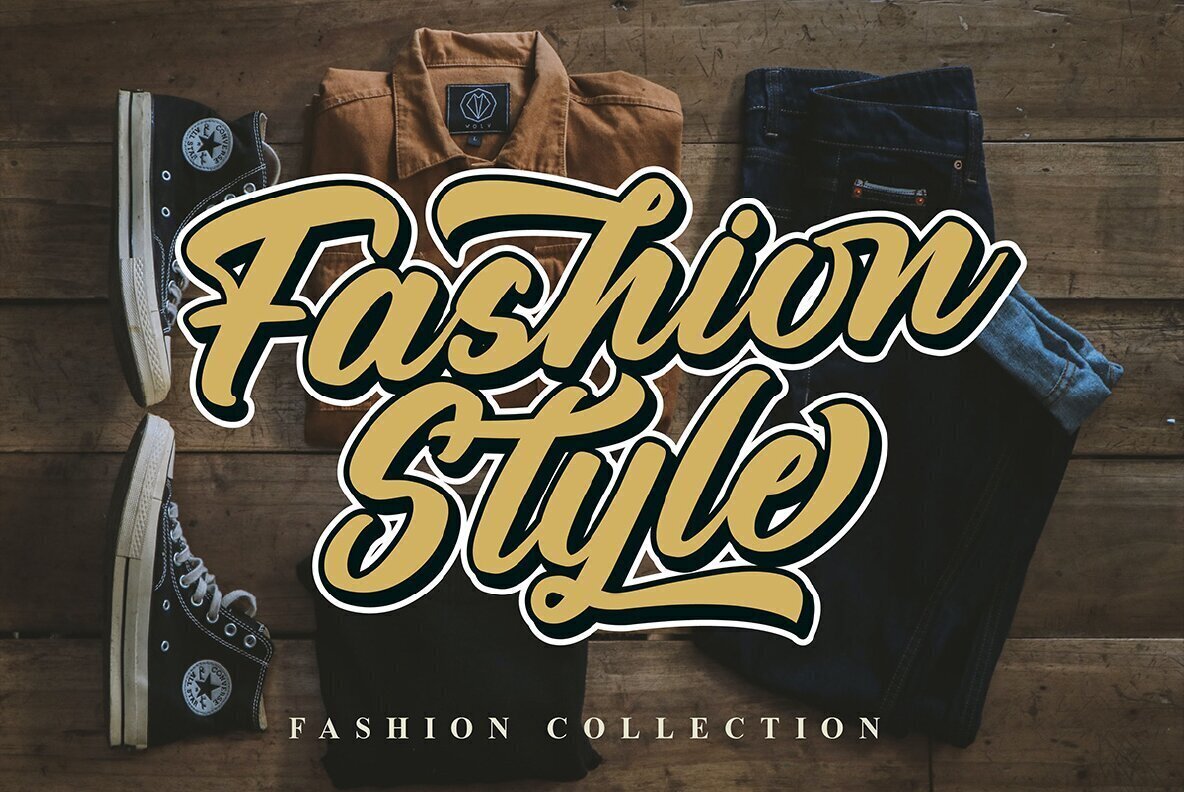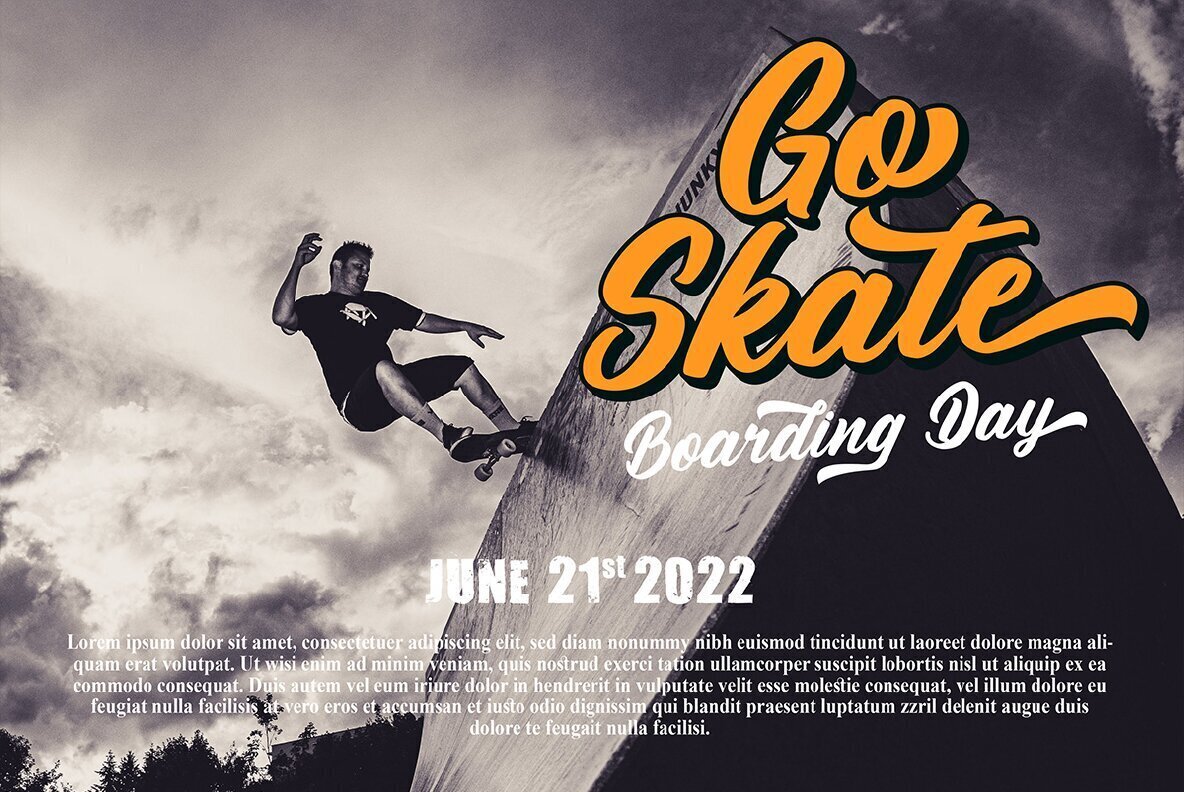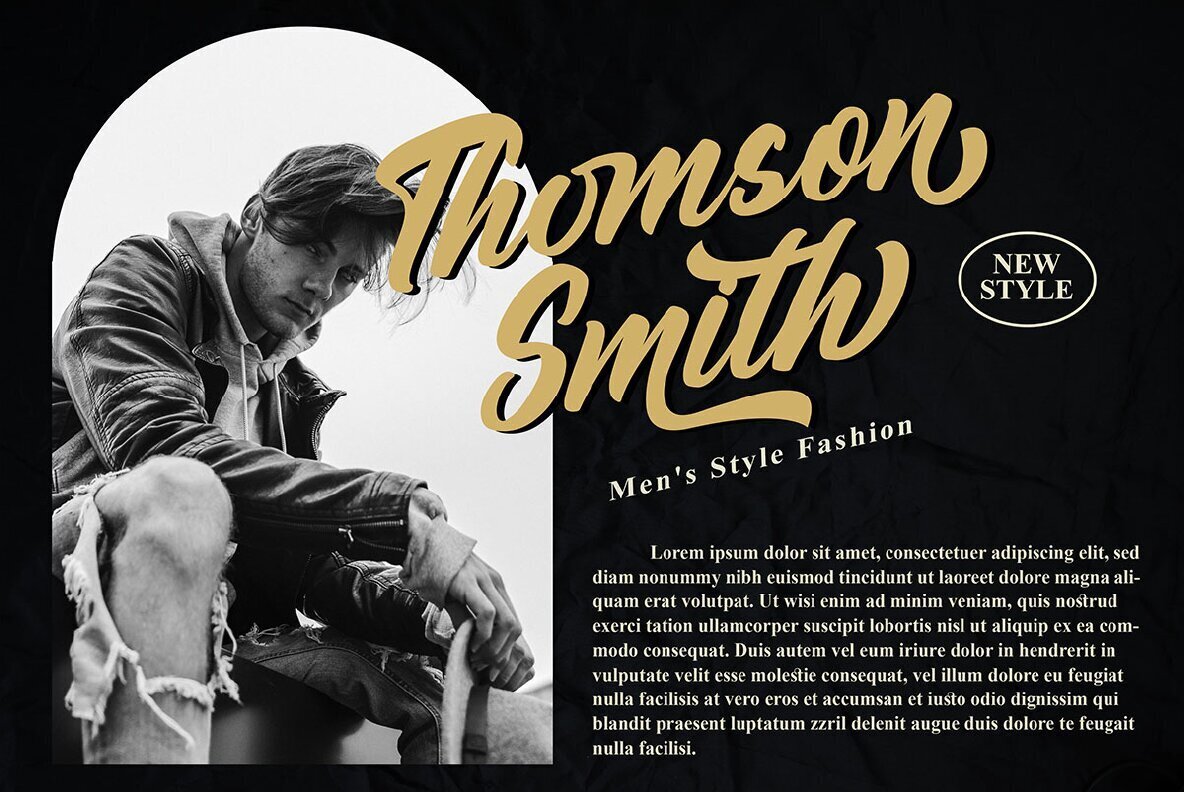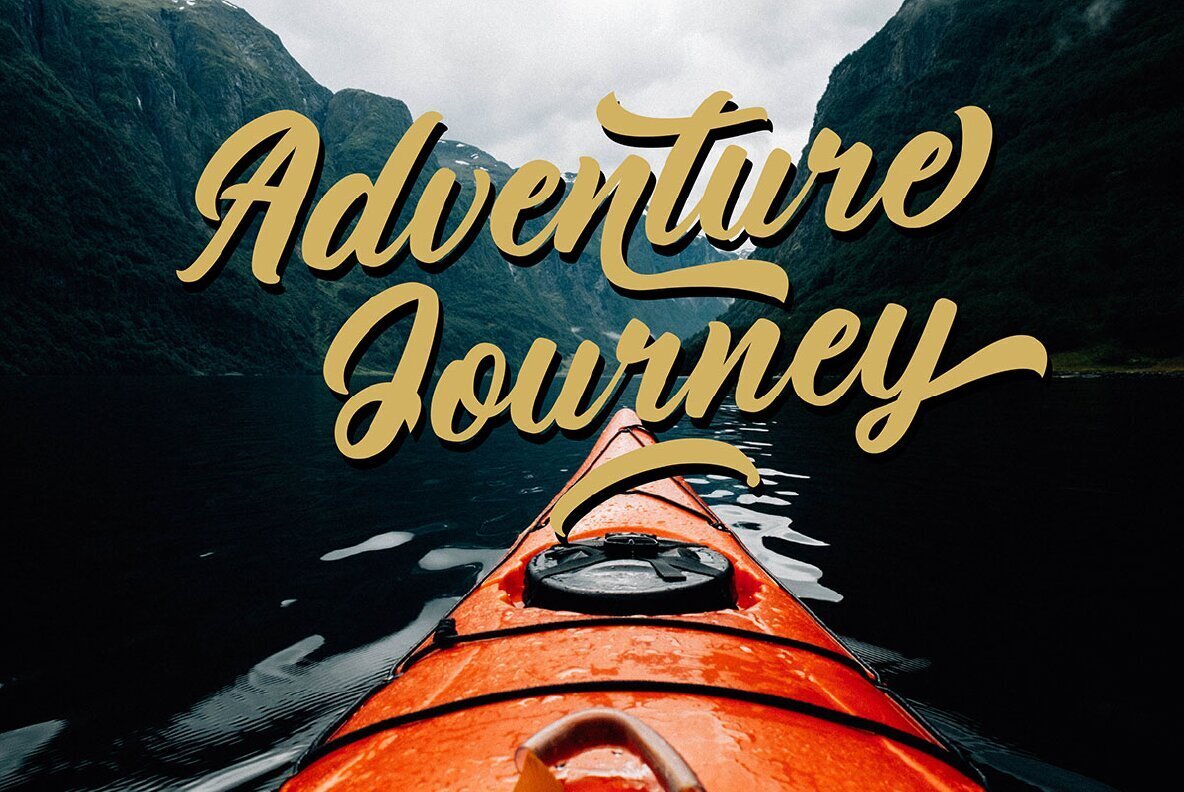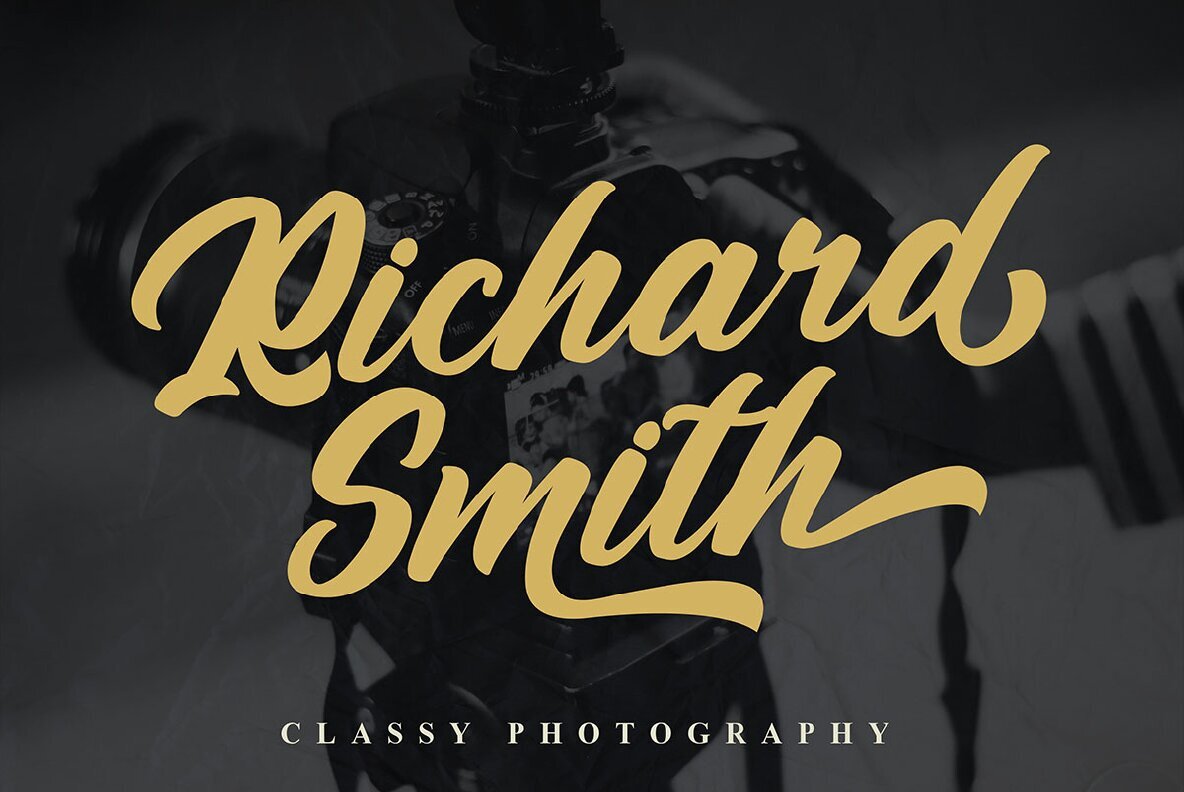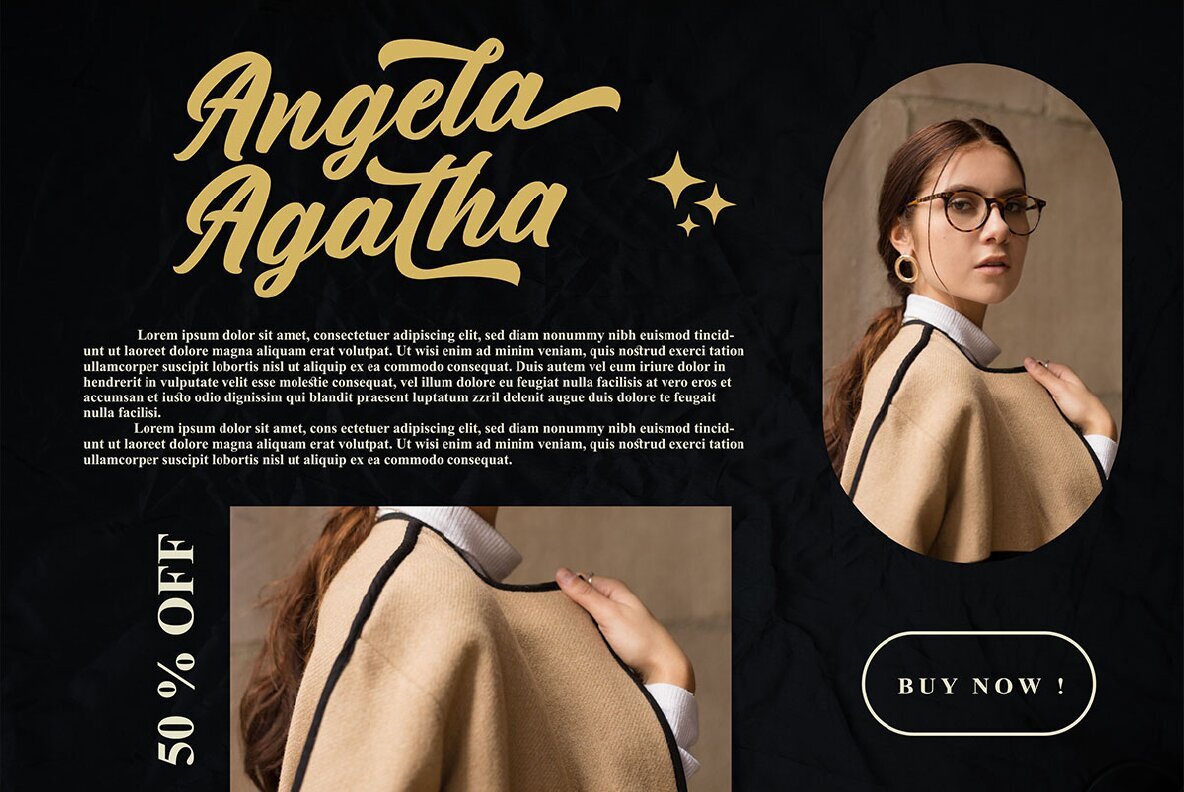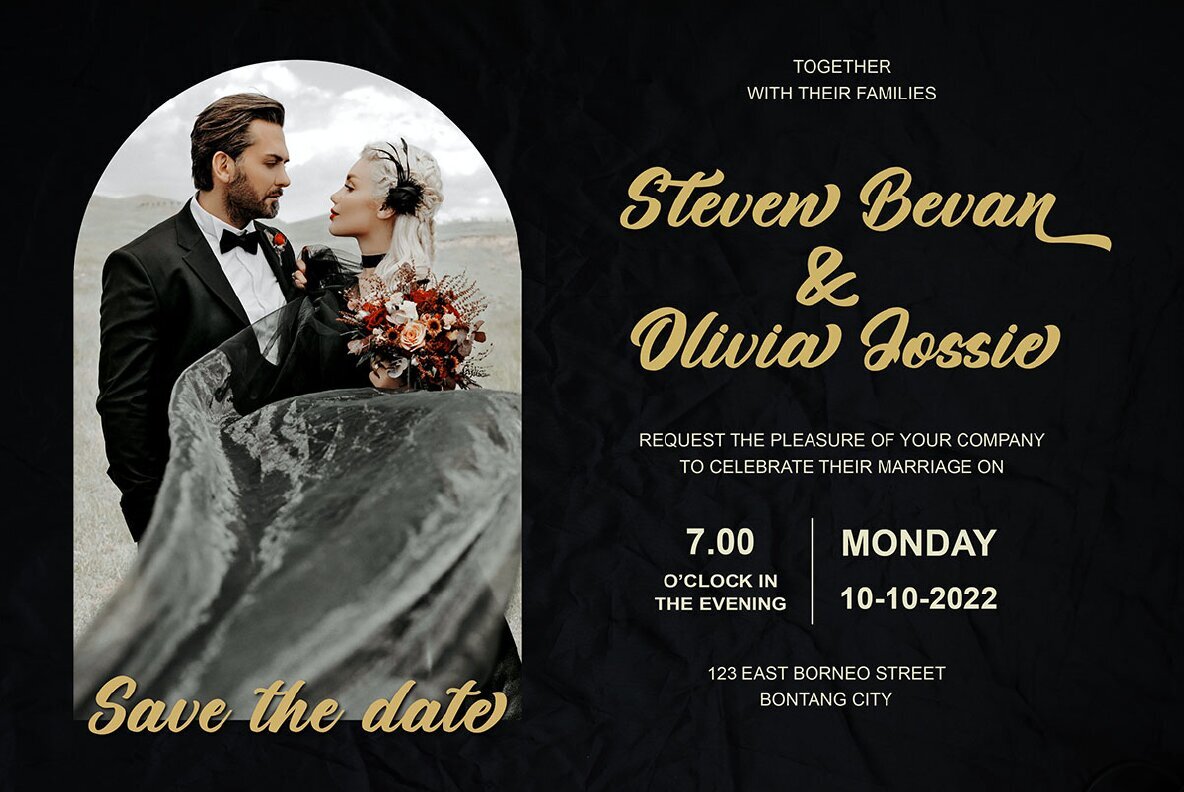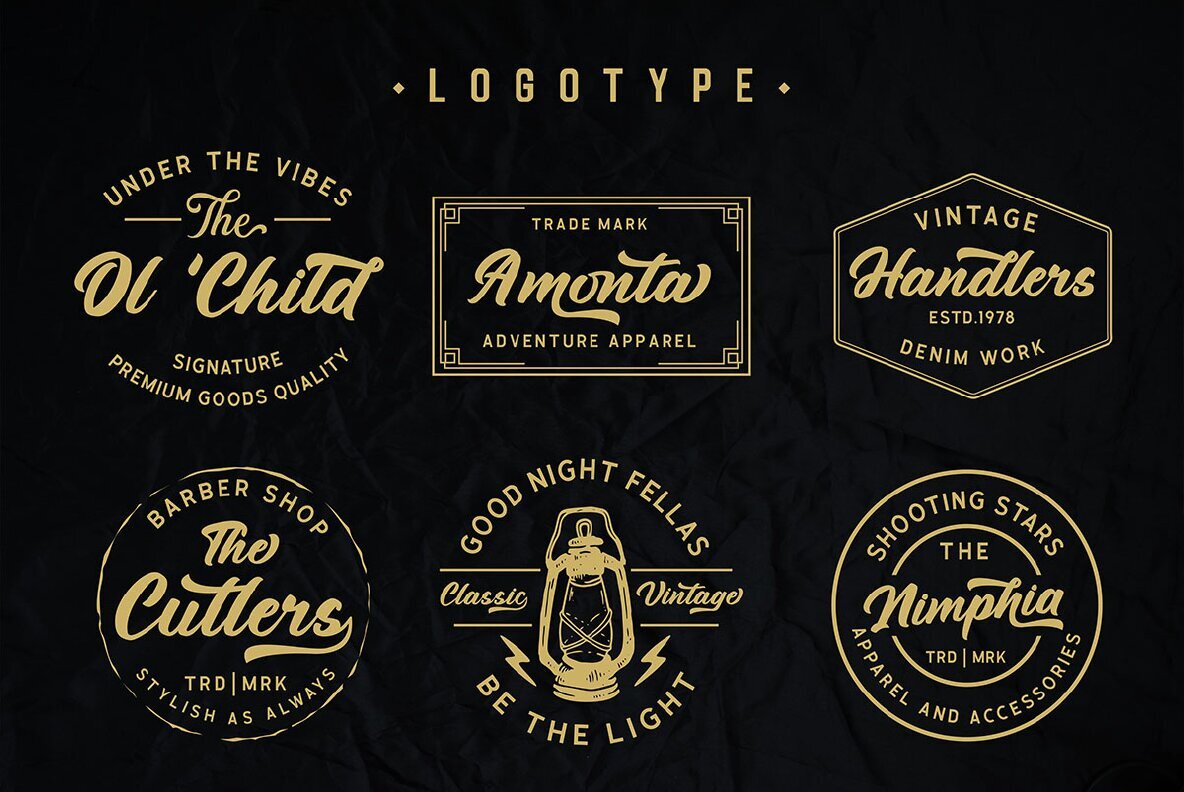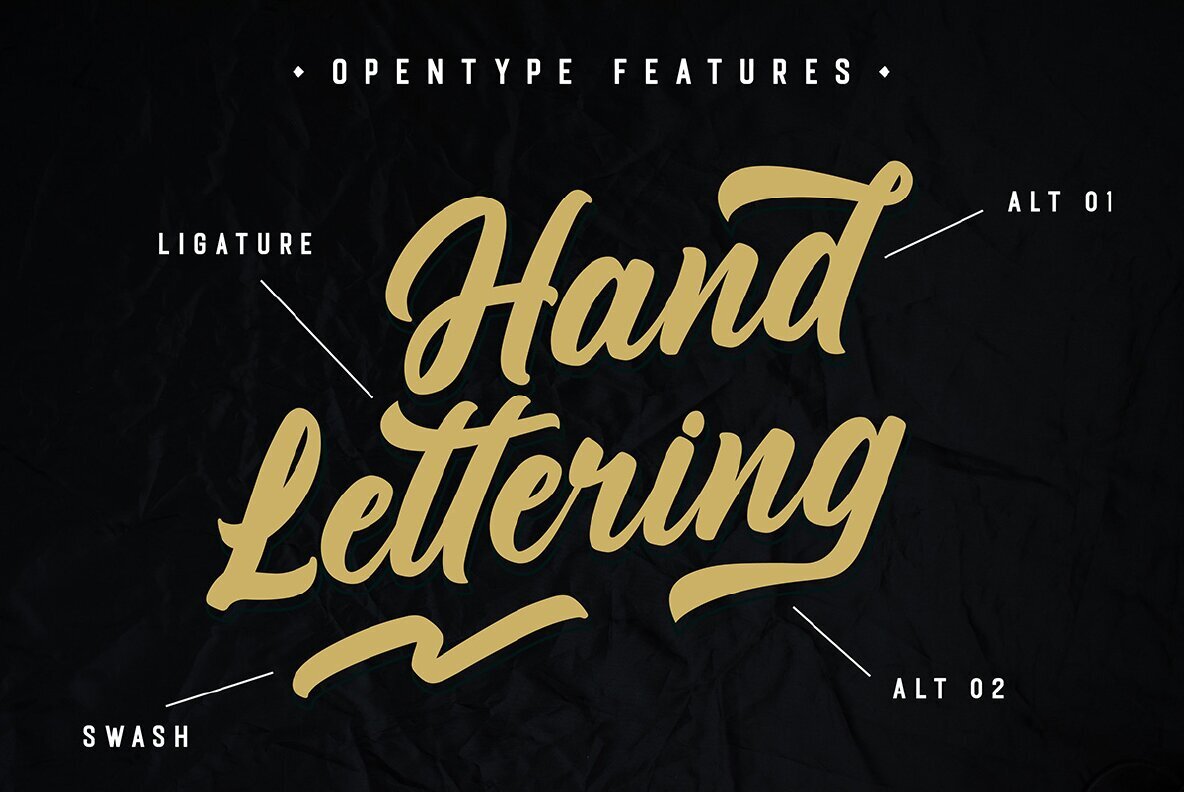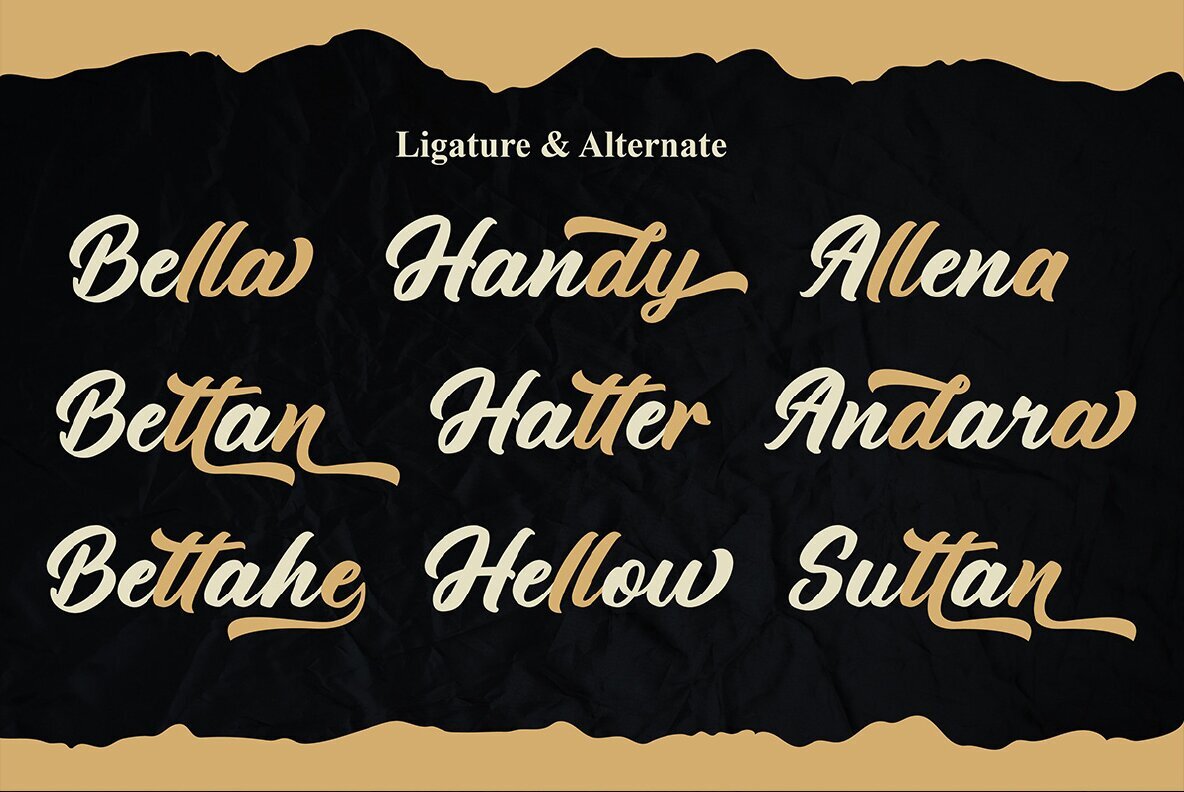
Anthem Pride Font
Anthem Pride Regular
Anthem Pride Italic
Anthem Pride is an enchanting handwritten font that offers remarkable versatility across a broad spectrum of applications. From greeting cards to headlines, this script font lends a personal, creative touch to any design project. With PUA encoding, you can access every glyph and swash effortlessly, making Anthem Pride an excellent choice for branding, logos, and more.Anthem Pride: A Versatile Handwritten Script
Notable Features